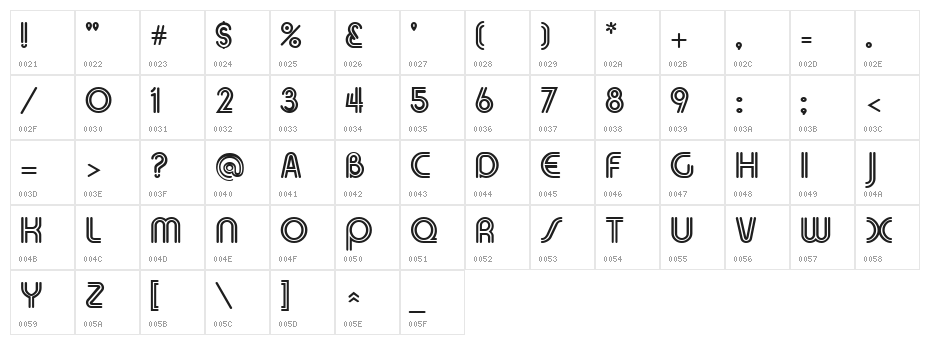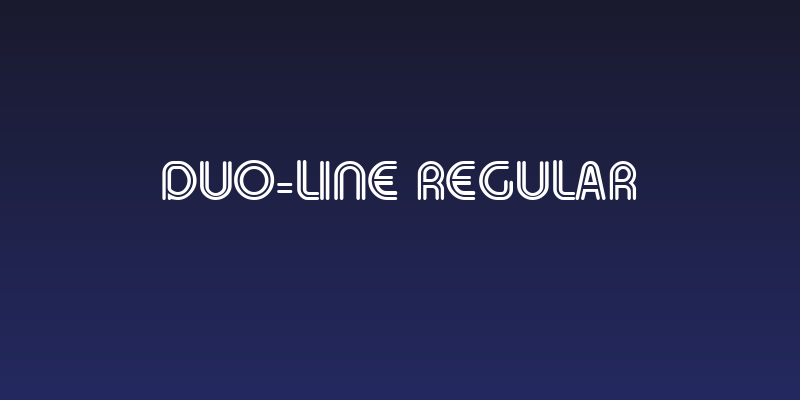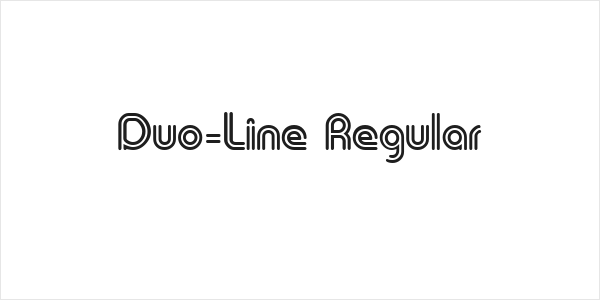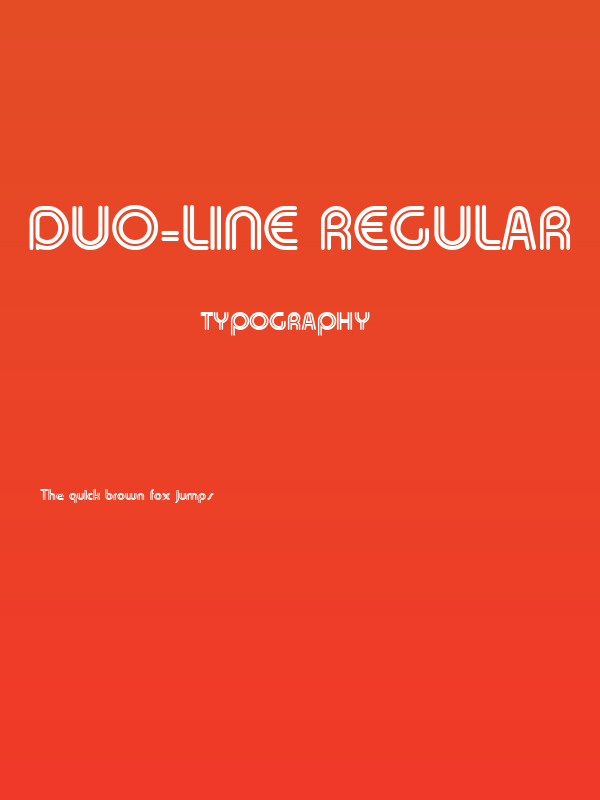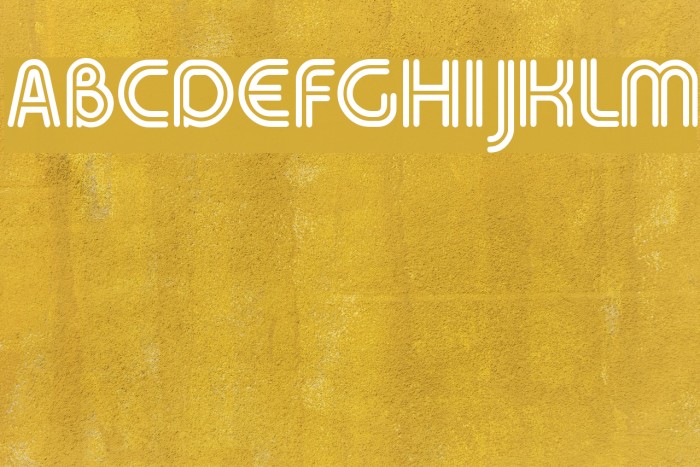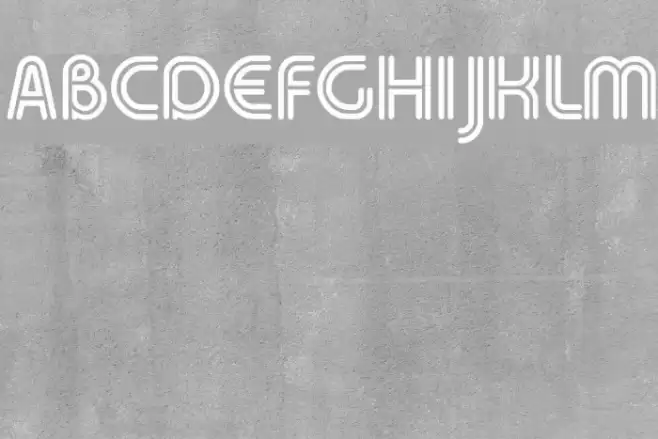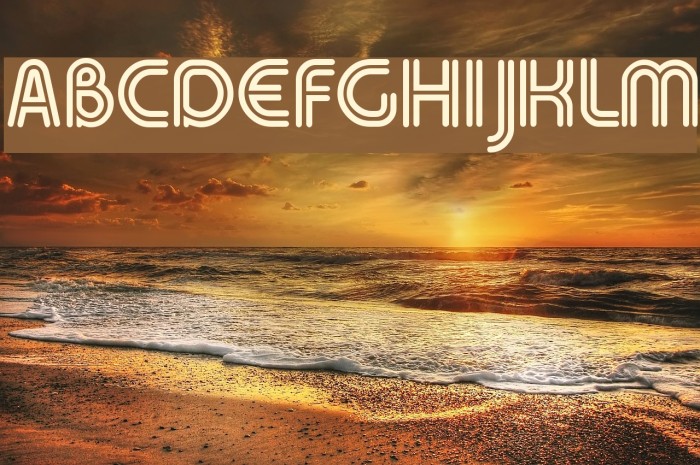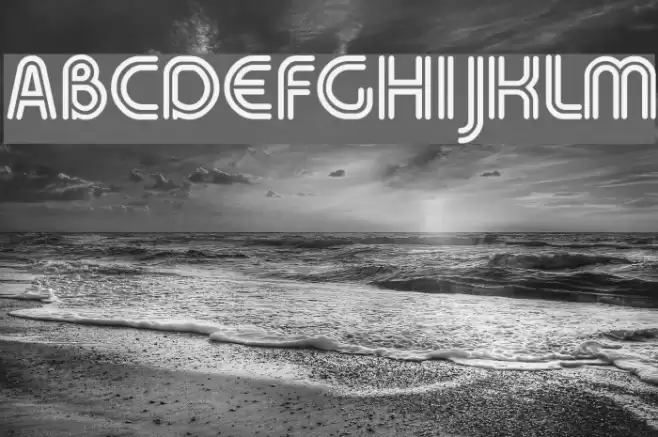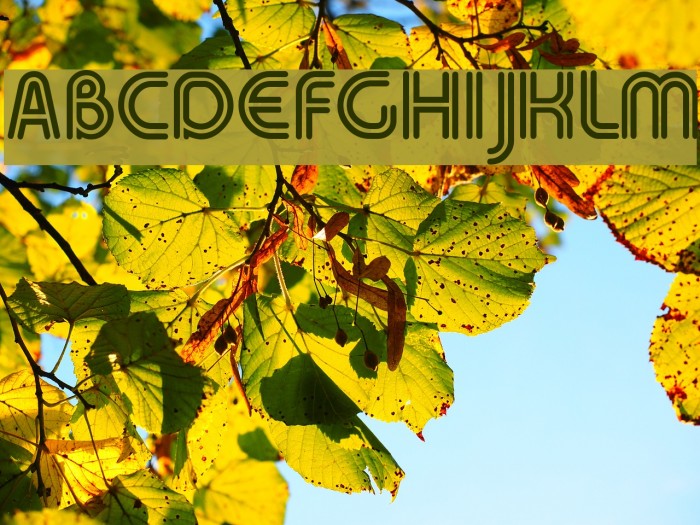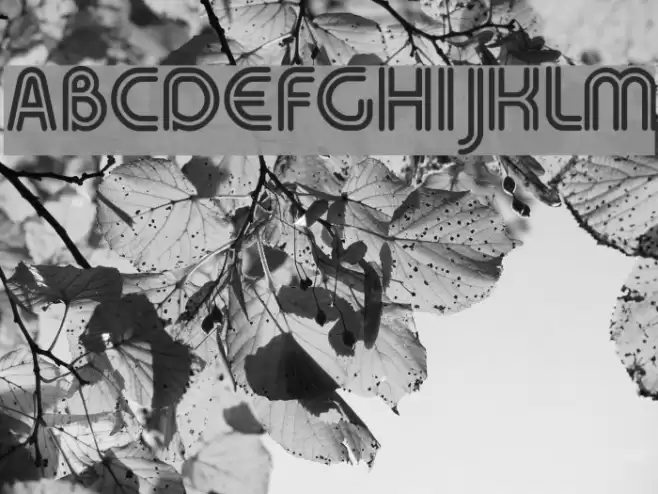
Duo-Line Regular Font
Duo-Line Regular Description
This font features a unique, modern design characterized by its double-line structure, giving it a futuristic and stylish appearance. The characters are rounded and geometric, with consistent line thickness that creates a sense of uniformity and balance. The uppercase and lowercase letters maintain a cohesive look, while the numerals and special characters complement the overall aesthetic. This font stands out with its bold, eye-catching design, making it suitable for creative and contemporary projects.